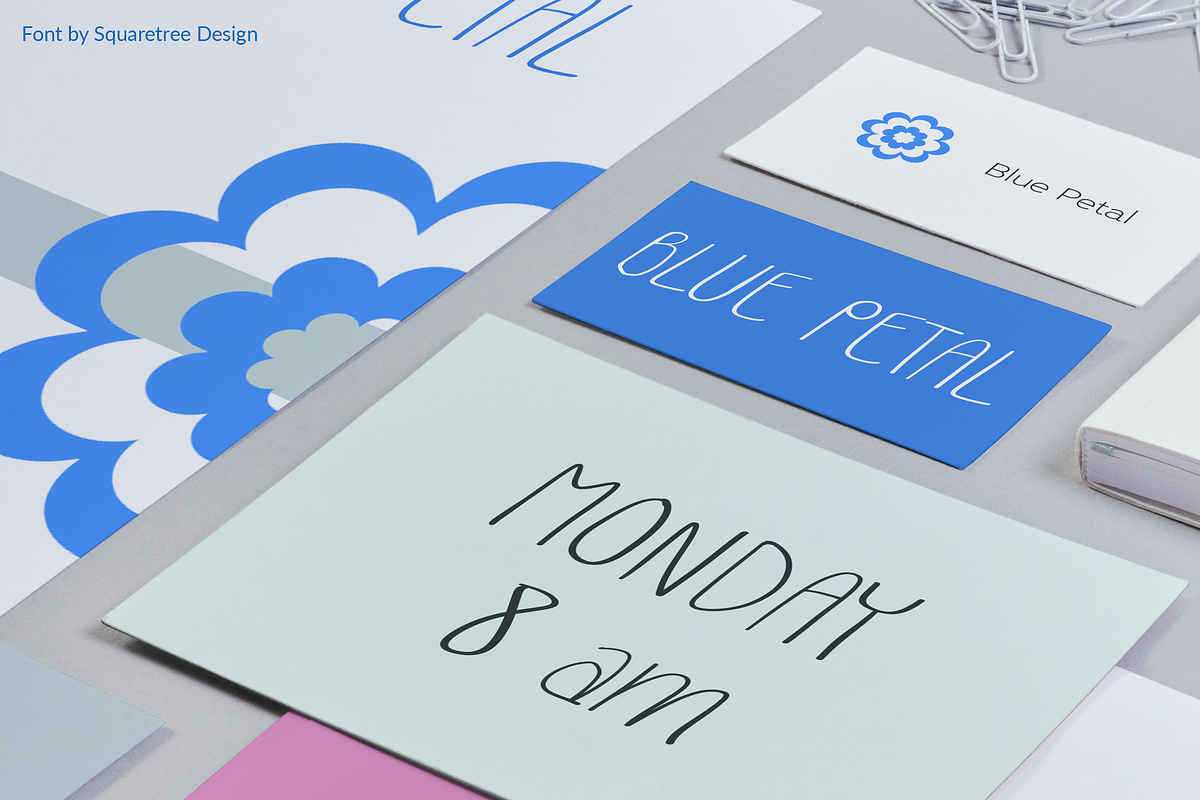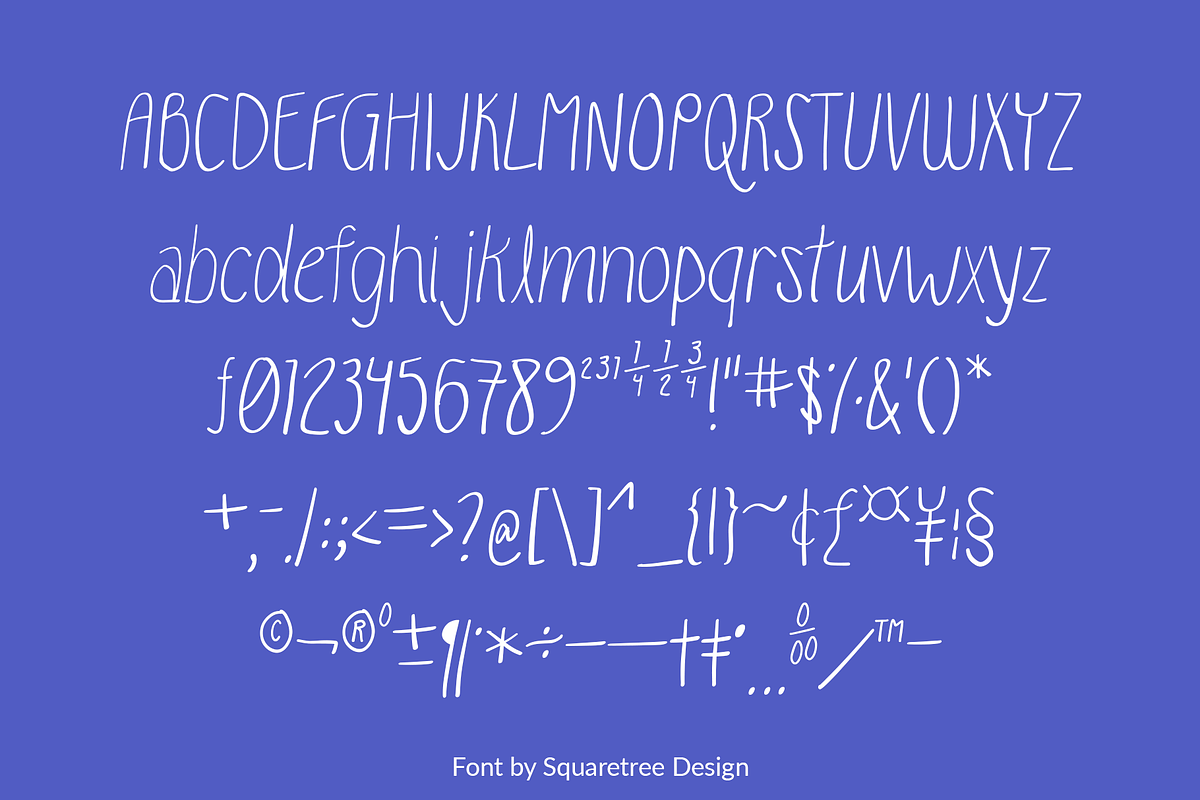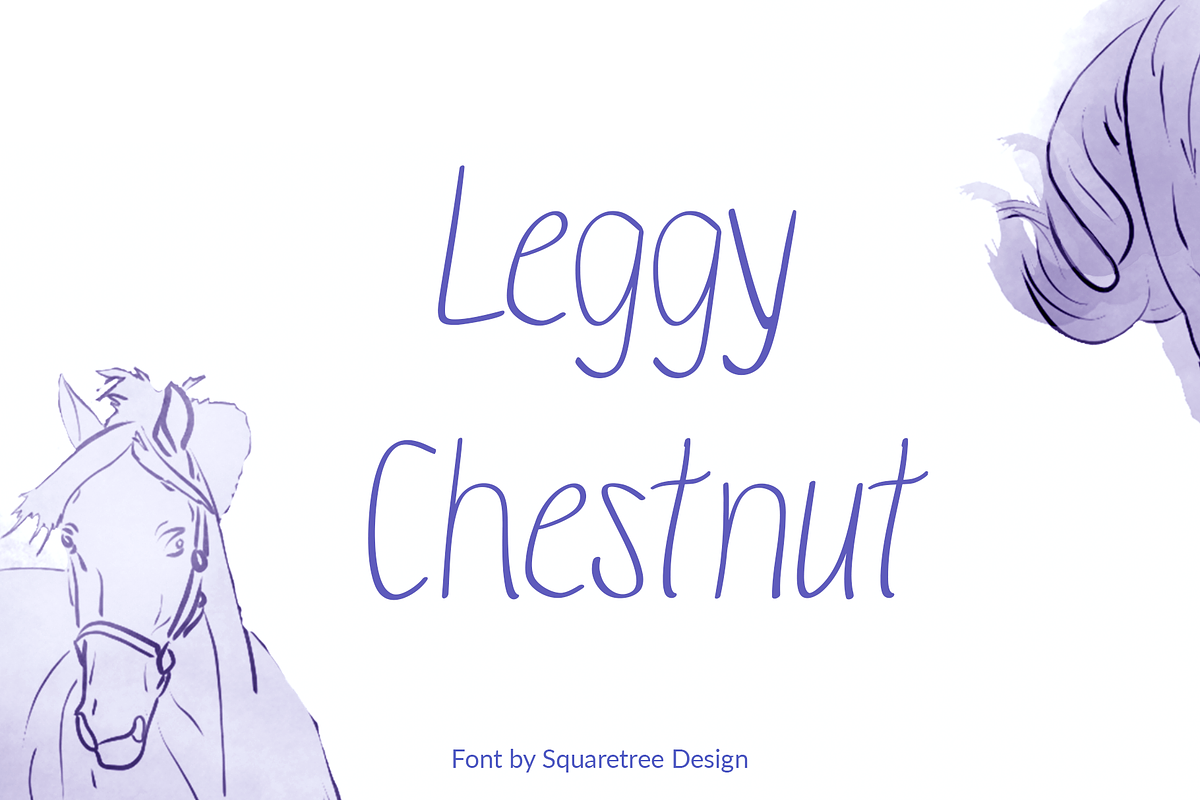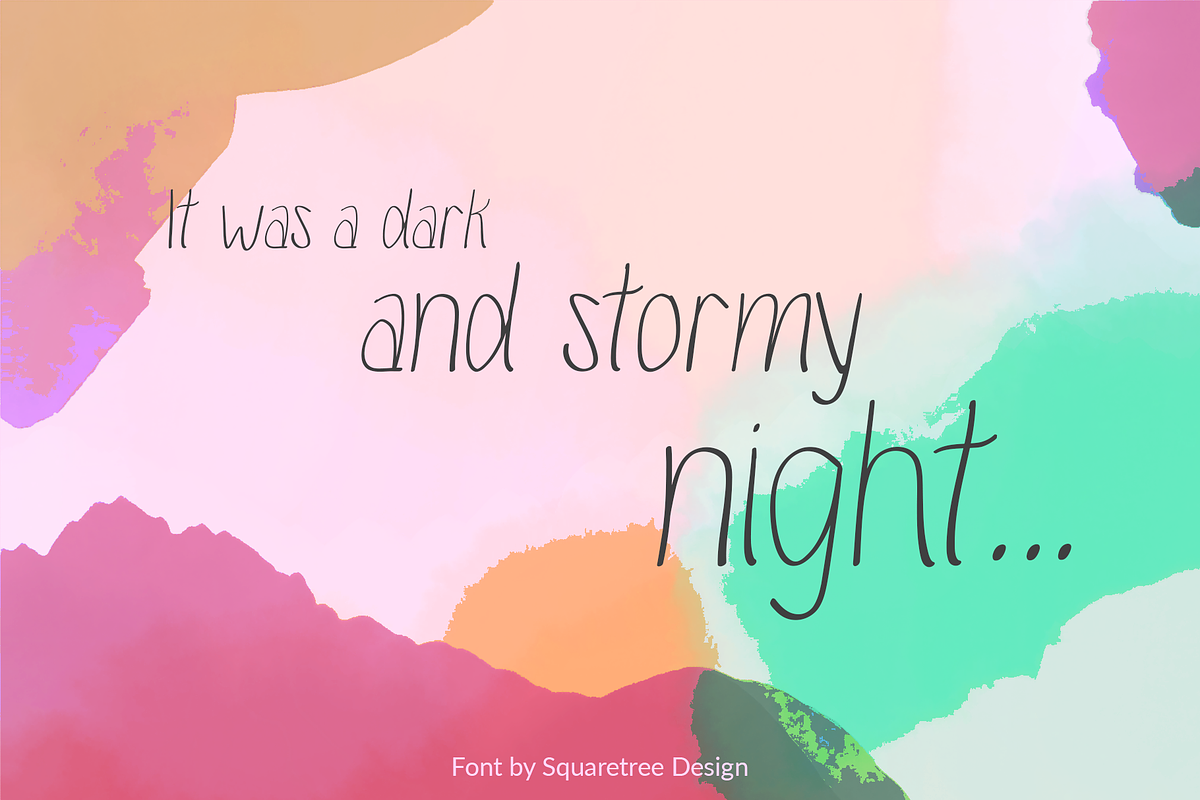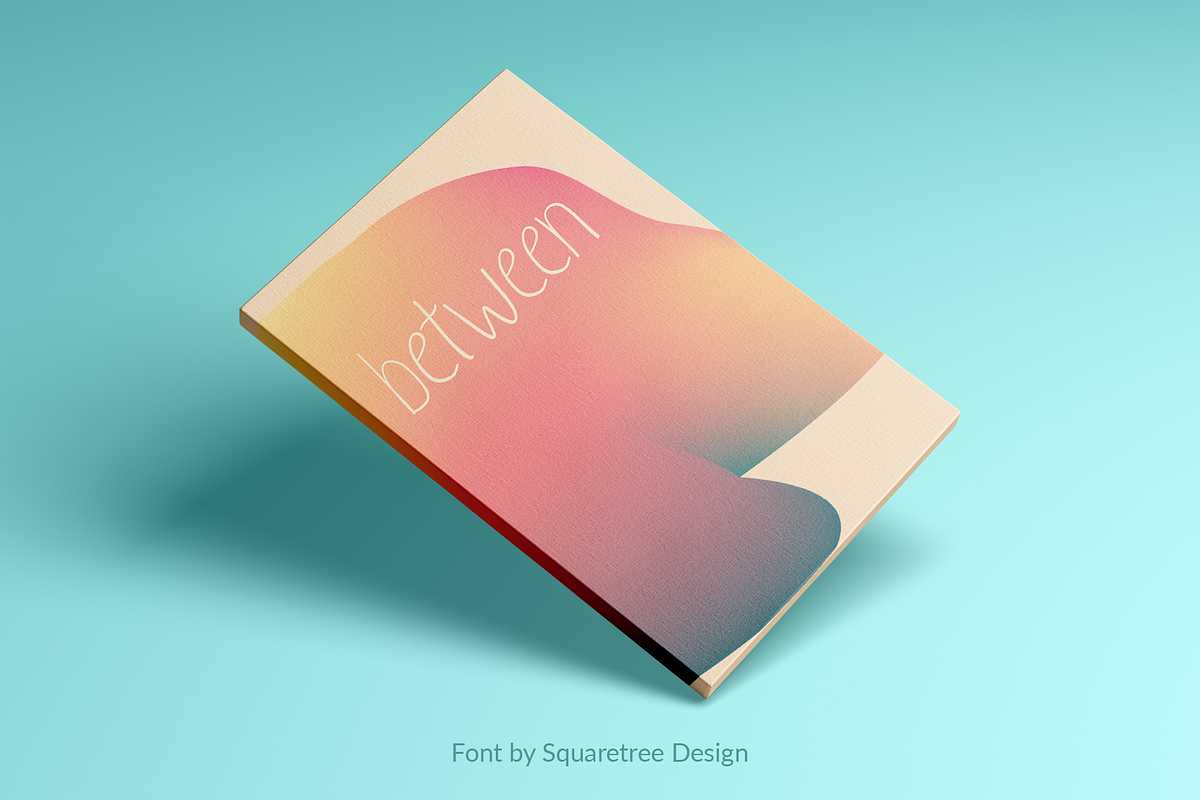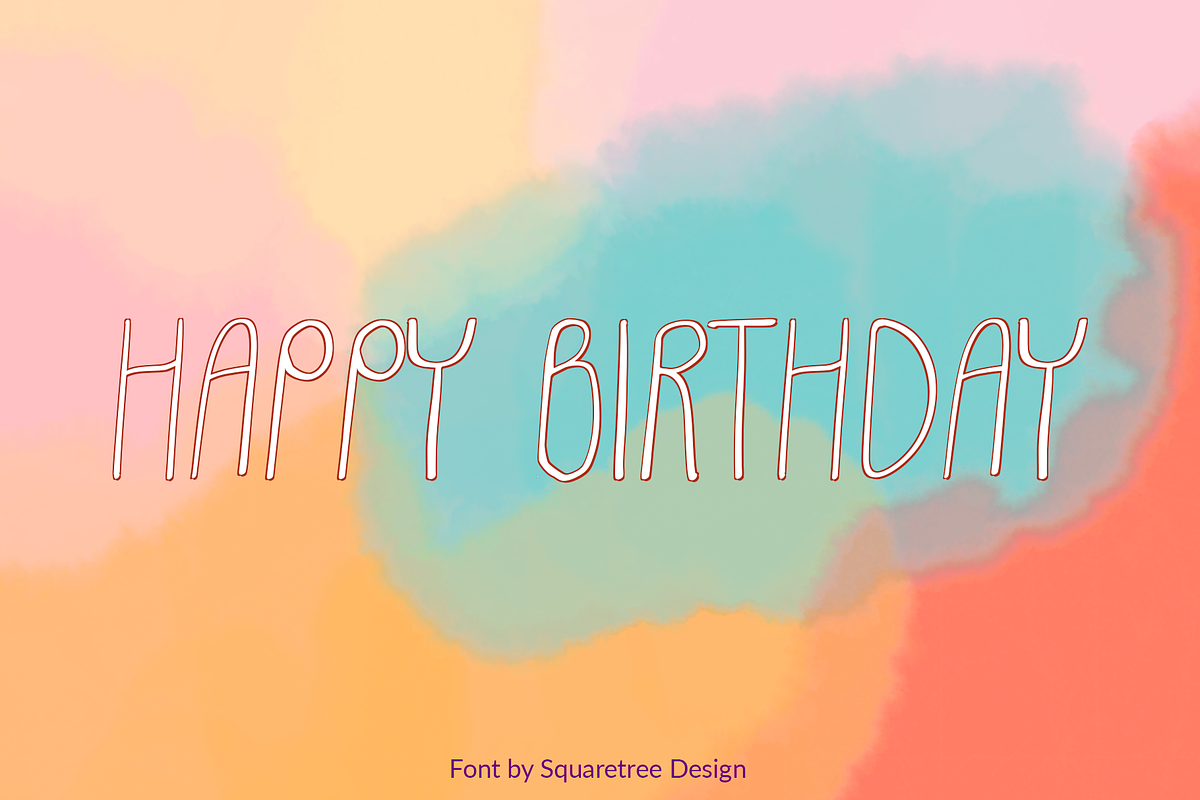
Leggy Chestnut - Handwriting Font
Leggy Chestnut is a friendly, assertive hand-drawn font. Clear lines and sweet details are ideal for stationary, invitations and lifestyle branding. Use anywhere you want to elevate an informal, hand-drawn look. Or bring your story to life in a comic or YA graphic novel.
Inspiration: The name means "tall, red-brown horse." A mix of wildness, grace and balance.